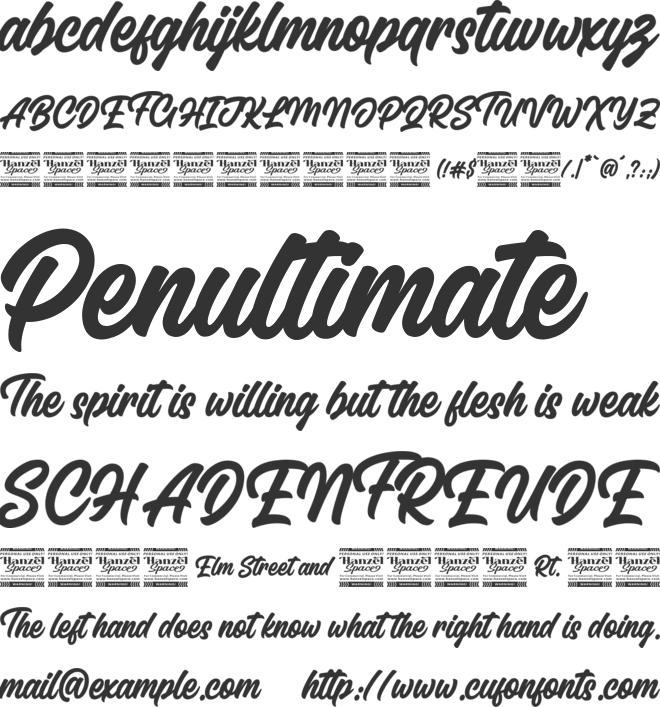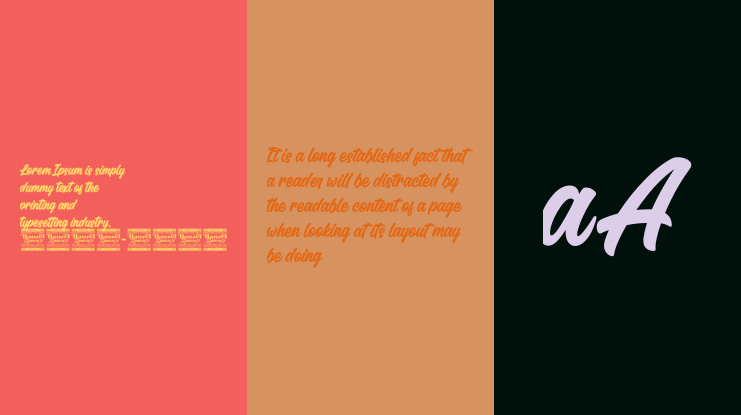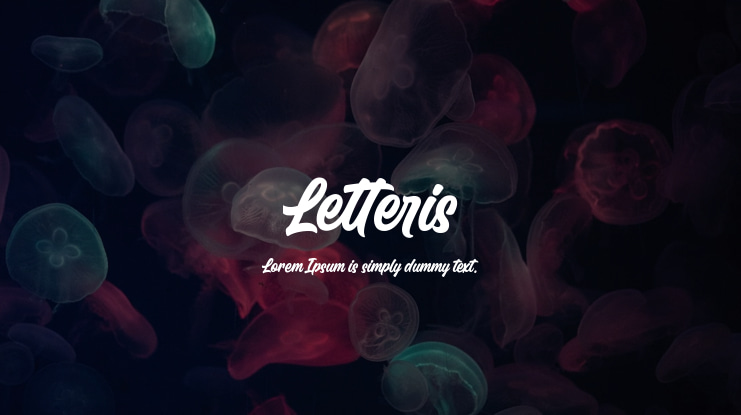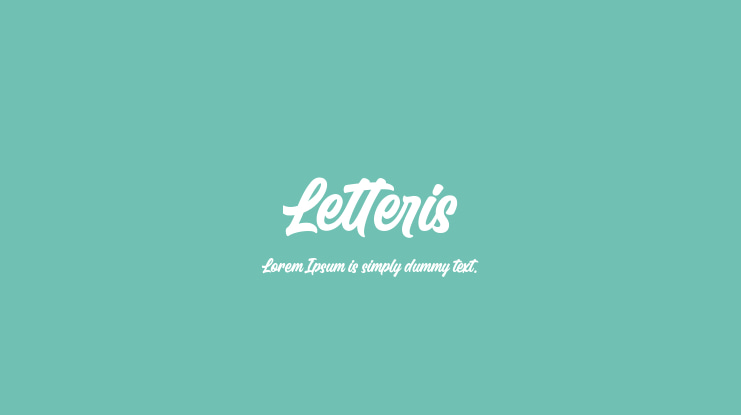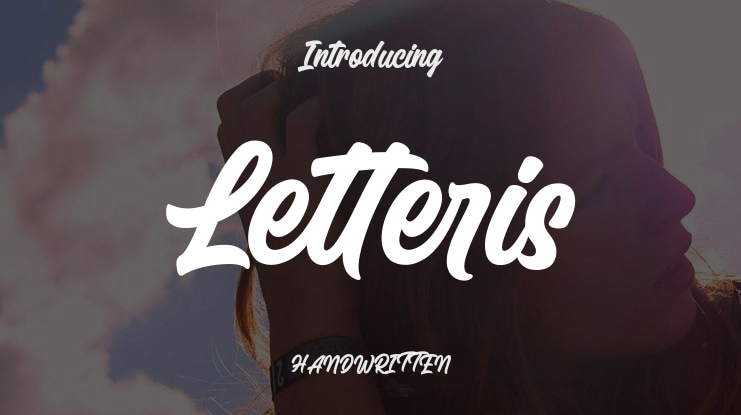
Letteris Font
Are you looking for a modern trandy script font? Do you want to create something that stands out and inspires
endless creativity, imagination and fun? What are you waiting for, we will provide the best choice for you.
Letteris - Modern Script Font
Introducing of our new product the name is Letteris, the bold script font inspired by Bold hand lettering style,
Letteris font is good for branding logotype, headline, book cover, Flyer, Packaging, poster, t-shirt design and any more.
Letteris have many alternative character and have opentype features like a stylistic alternatice, stylistic set,
ligature and swash so you can mix and match like a you want.
Features:
– Full Set of standard alphabet and punctuation
– Multilingual Characters (ÁÂÄÀÅÃÆÇÐÉÊËÈÍÎÏÌÑÓÔÖÒØÕÚÛÜÙẂŴẄẀÝŶŸỲ áâäàåãæçðéêëèíîïìñóôöòøõœúûüùẃŵẅẁýŷÿỳ€£¥)